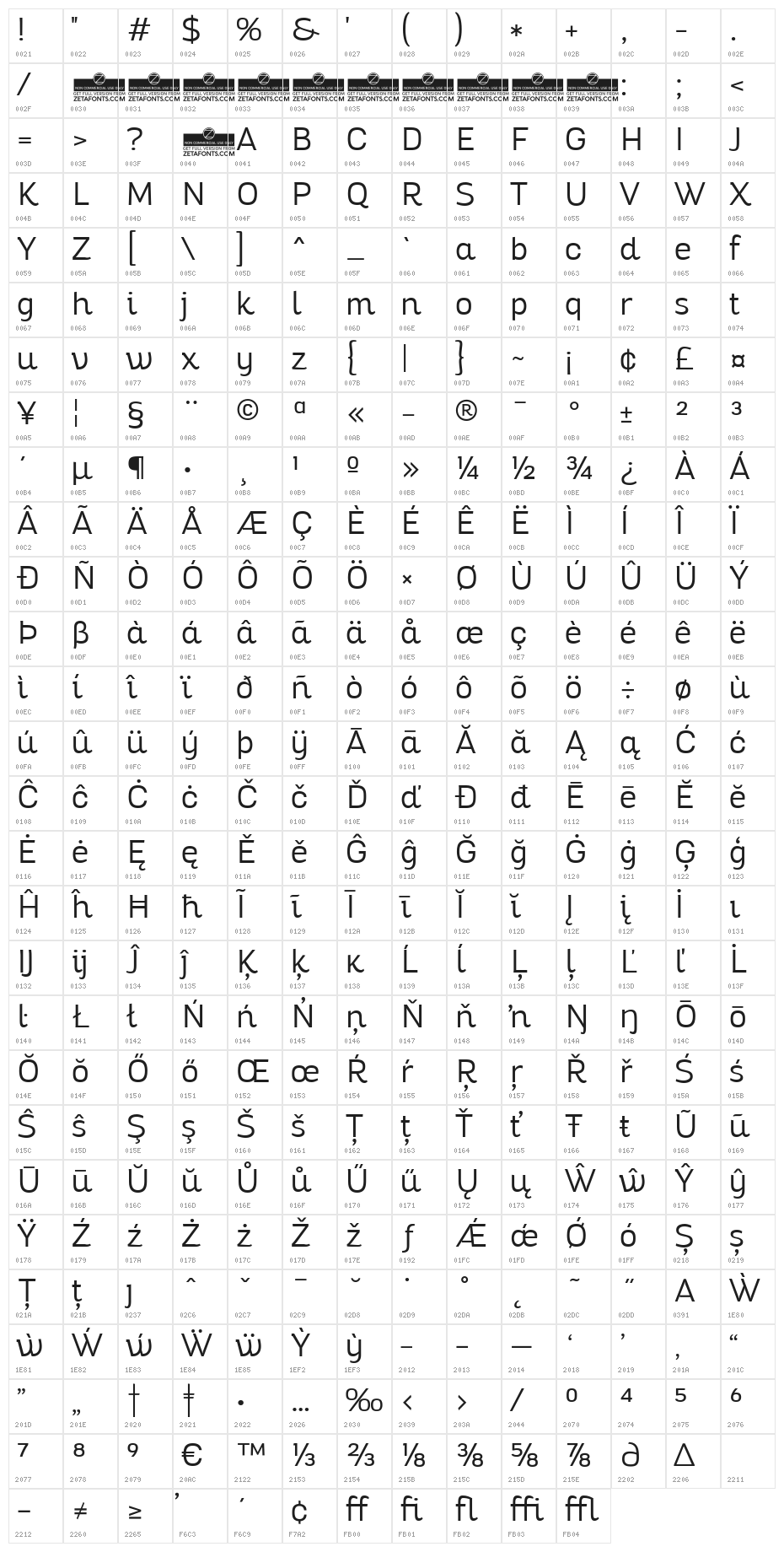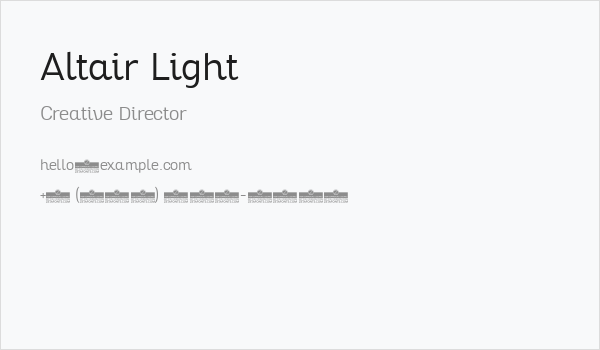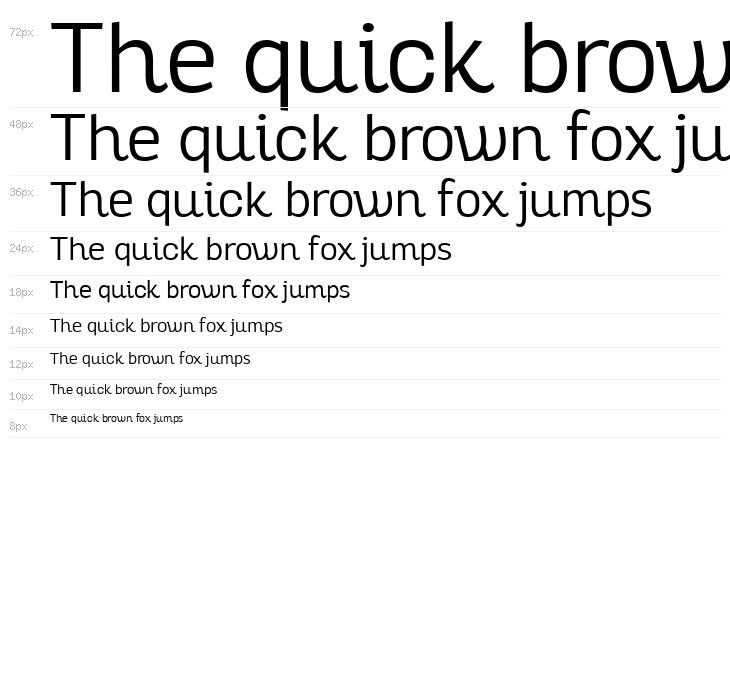
Altair Light Font
| Proiecte propuse | Ideal for digital interfaces, branding projects, corporate materials, and editorial design where a modern and clean aesthetic is desired. |